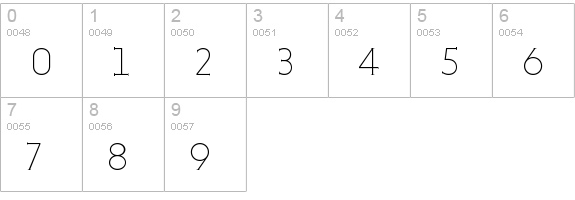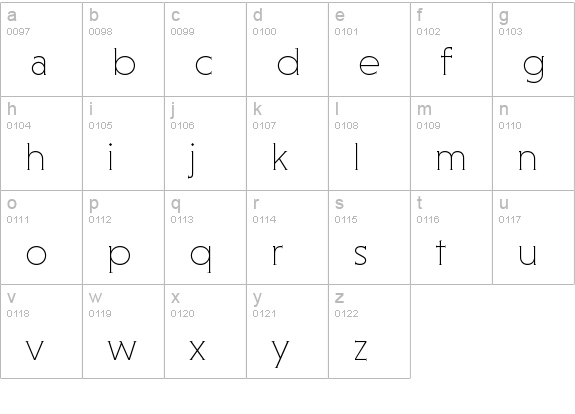
Niveau Serif ExtraLight Font Details
Niveau Serif ExtraLight is an airy, ultra-refined variant in the Niveau typeface family \xE2\x80\x94 well suited to minimalist headlines and refined display use.
Introducing Niveau Serif ExtraLight, a sleek and elegant typeface that exudes sophistication and modernity. With its delicate serifs and clean lines, this font is perfect for adding a touch of refinement to any design project. Niveau Serif ExtraLight is designed to convey a sense of subtle sophistication and timeless beauty, making it ideal for use in branding, editorial design, and more. What makes Niveau Serif ExtraLight even more appealing is that it is available for free download at FontsMarket.com. This means that you can easily access this stunning font and enhance your creative projects without any cost. Whether you're designing a website, creating a logo, or working on a print publication, Niveau Serif ExtraLight is sure to elevate your work with its exquisite aesthetic and versatility. Don't miss out on the opportunity to incorporate this exceptional font into your design arsenal - download Niveau Serif ExtraLight for free today!